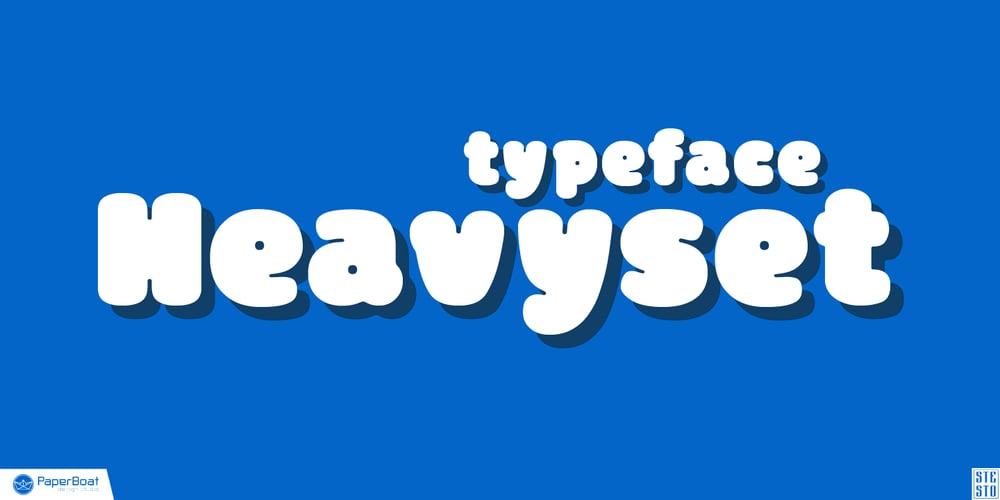
Heavyset Font Family was designed by Stefan Stoychev and published by Stefan Stoychev. Heavyset contains 2 styles and family package options. Heavyset is a smooth, rounded typeface that combines boldness with a soft, approachable aesthetic. This font comes in two styles: Regular and Oblique, each characterized by rounded, oval shapes that give the typeface a modern yet friendly vibe. Ideal for branding, headlines, and packaging, Heavyset is designed to convey both strength and warmth.